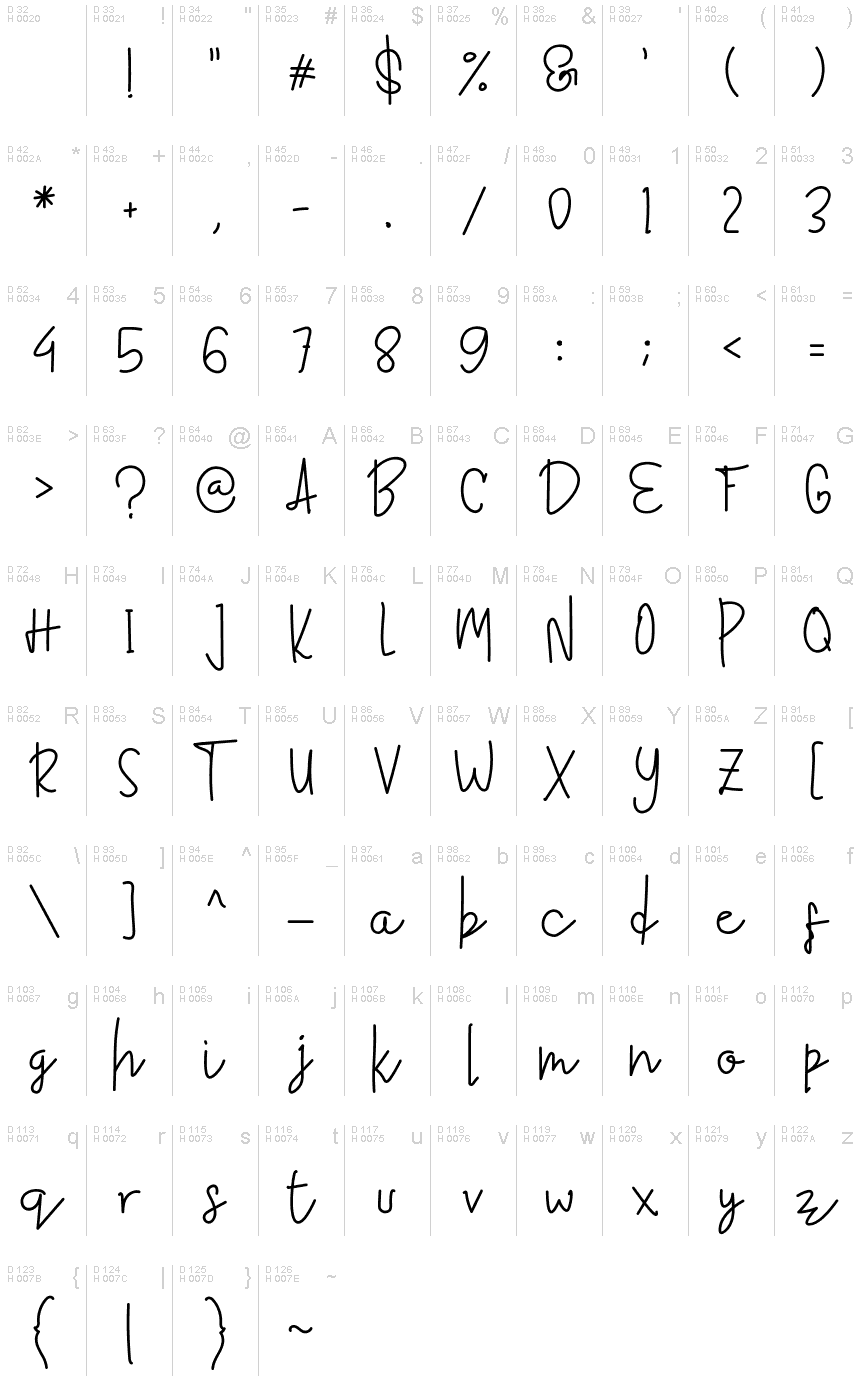
Galvendish
Galvendish is a charming handwritten font created by the talented Rozi of Twinletter. Its extra-light weight gives it a delicate and elegant feel, making it perfect for projects that require a subtle touch. Whether you're designing wedding invitations, creating beautiful product packaging, or crafting eye-catching social media graphics, Galvendish will add a unique and personal touch to your work. Its whimsical style is perfect for anything from children's books to DIY blogs. Give your designs a handcrafted feel with Galvendish - the perfect typeface for any project that needs an extra touch of elegance and personality.